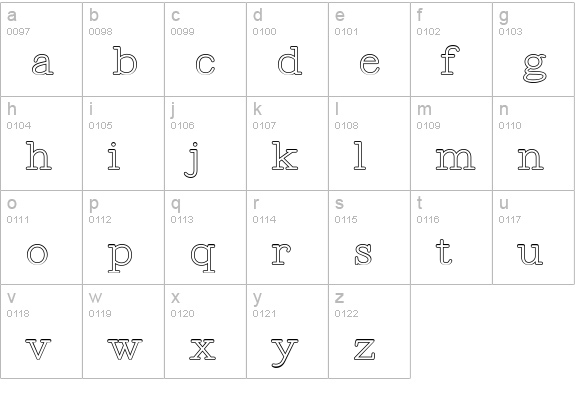
Revelation BTN Exp Out font is a bold and striking display typeface that is sure to make your designs stand out. Its unique design features extended and outlined characters, creating a powerful and impactful visual effect. This font is perfect for headlines, titles, logos, posters, and any other design project that requires a strong and attention-grabbing typeface. What sets Revelation BTN Exp Out font apart is not only its stunning aesthetics but also its availability for free. Yes, you read that right – this impressive font is freely available to download at FontsMarket.com. This means that you can enhance your designs with this visually captivating font without spending a penny. With its versatility and eye-catching appeal, Revelation BTN Exp Out font is a versatile choice for various design applications. Whether you're working on a branding project, a promotional campaign, or simply want to add a touch of boldness to your designs, this font is the perfect choice. Its clear and distinct letterforms ensure legibility even at smaller sizes, making it suitable for both print and digital media. The extended and outlined characters create a strong visual impact, making your designs instantly recognizable and memorable. So why wait? Head over to FontsMarket.com and download Revelation BTN Exp Out font for free. Get ready to elevate your designs and make a lasting impression with this powerful and captivating typeface.